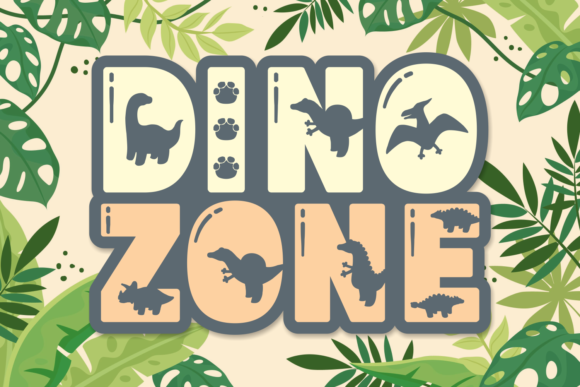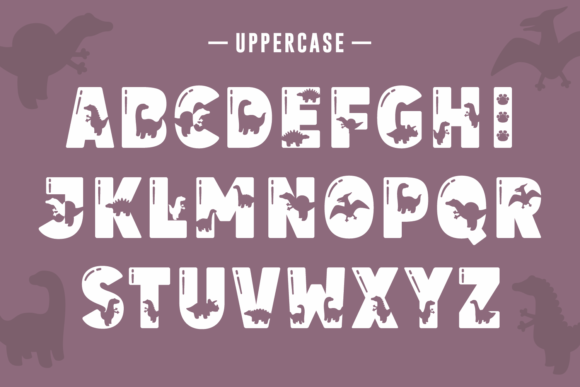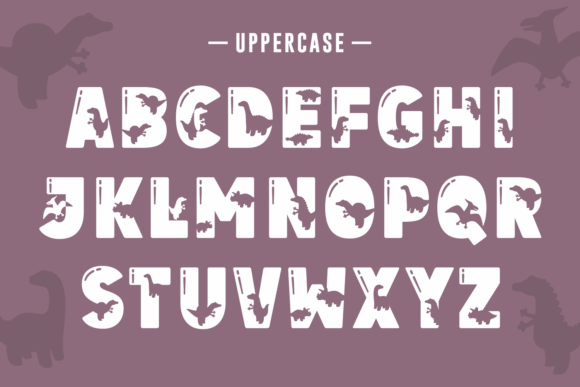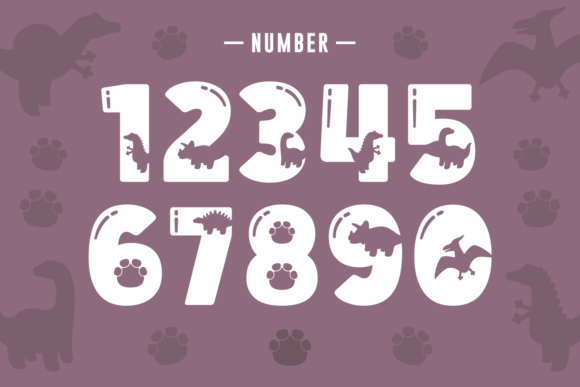
Dino Zone Font
About the Dino Zone Font
Elevate your designs with Dino Zone Font, a font that combines sophistication with readability. Dino Zone is a playful decorative font with a theme inspired directly by dinosaurs’ designs. You can see dino paws and different dino species inside the characters. Grab this kid font and use it for children-designed themes, birthday cards, posters, stickers, wall art, kids’ rooms, and other childish prints.
Dino Zone’s playful energy makes it ideal for children’s books, branding for toy companies, or playful packaging designs. It works exceptionally well in headlines, short text blocks, and logos where its unique character can shine. However, its decorative nature makes it unsuitable for body text or UI elements requiring high readability.
Consider pairing Dino Zone with a clean sans-serif like Open Sans for a balanced contrast, or a more rounded geometric font like Montserrat for a similarly playful yet modern feel. For a touch of sophistication, a simple serif like Merriweather can provide an elegant counterpoint to Dino Zone’s whimsical forms.
The font’s overall personality is undeniably fun and friendly, making it perfect for projects targeting a younger audience or brands emphasizing a lighthearted and approachable image. Avoid using it in contexts demanding seriousness or professionalism.
Dino Zone Font Usage Examples
Dino Zone Font Example